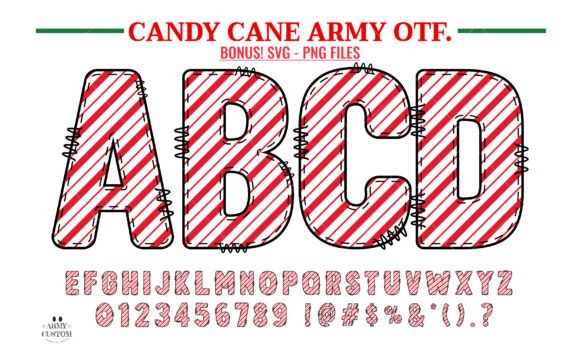
Introducing Candy Cane Christmas Font: A Festive Design Delight
What’s the Big Deal About Candy Cane Christmas Font?
Candy Cane Christmas Font is more than just a holiday font – it’s an experience. Exuding a vibrant, festive joie de vivre, this font elevates your designs by encapsulating the jubilant spirit of holiday cheer. Whether you’re a designer, crafter, or creative hobbyist, this font is your go-to choice for evoking that irreplaceable warmth and merriment.
- ✨ Vibrant, multi-colored design that’s sure to turn heads
- ✨ OpenType features and glyphs for added creativity and customization
The Story Behind Candy Cane Christmas Font
Candy Cane Christmas Font was designed with one goal in mind: to capture the magic and wonder of the holiday season. Inspired by the classic colors and patterns of Christmas, this font is the perfect blend of fun, festive, and sophisticated. Whether you’re a designer, crafter, or creative hobbyist, Candy Cane Christmas Font is sure to become your new go-to font for all your holiday design needs.
| Font Name | Candy Cane Army Font |
| Author | Army Custom |